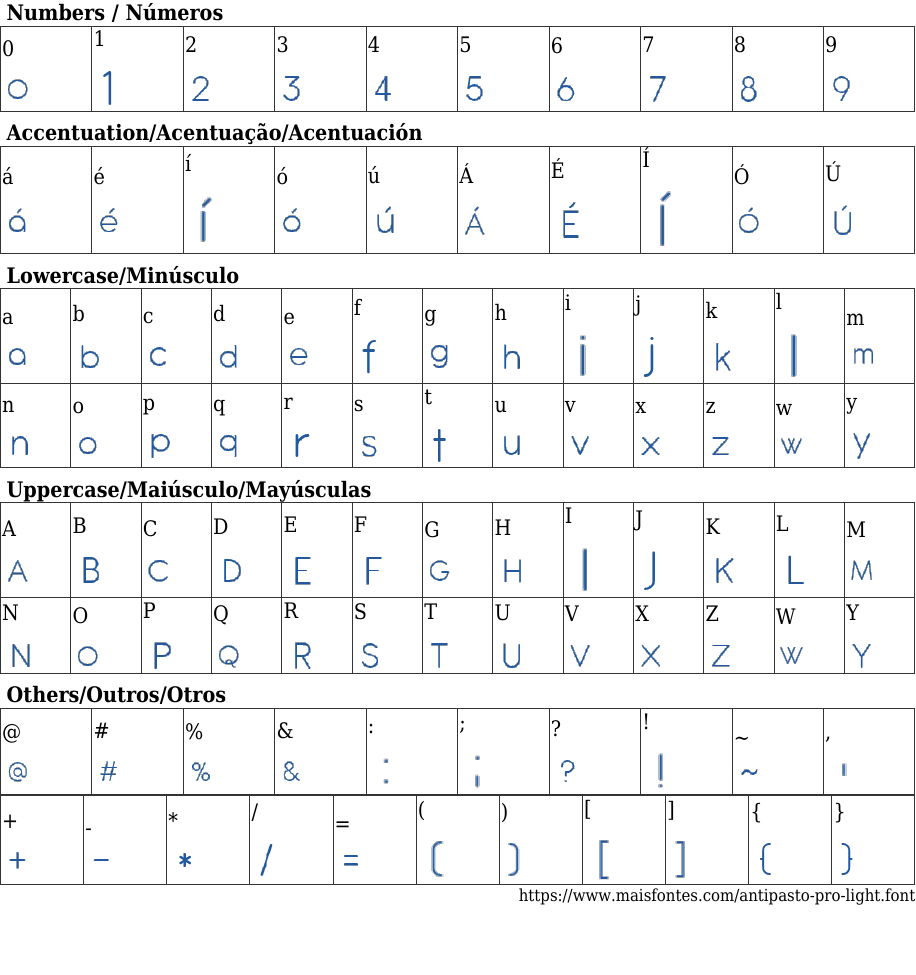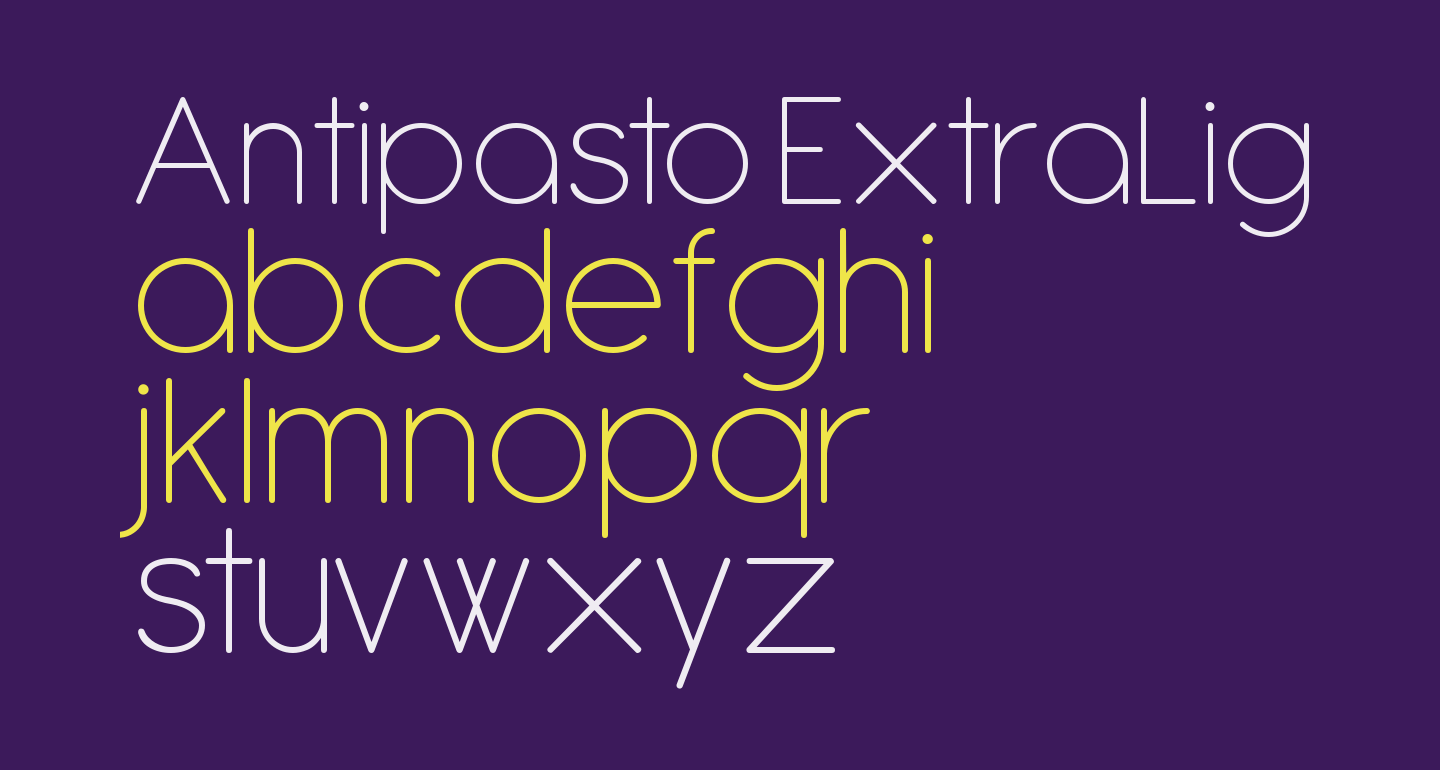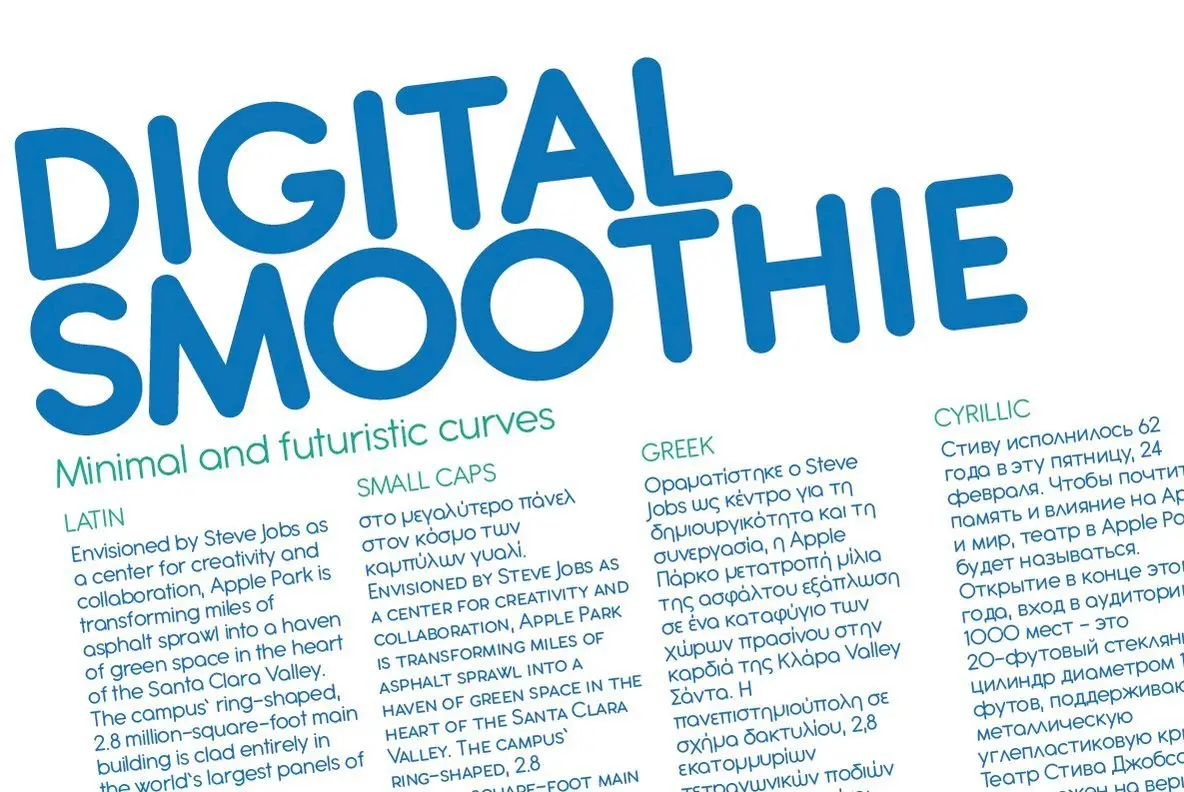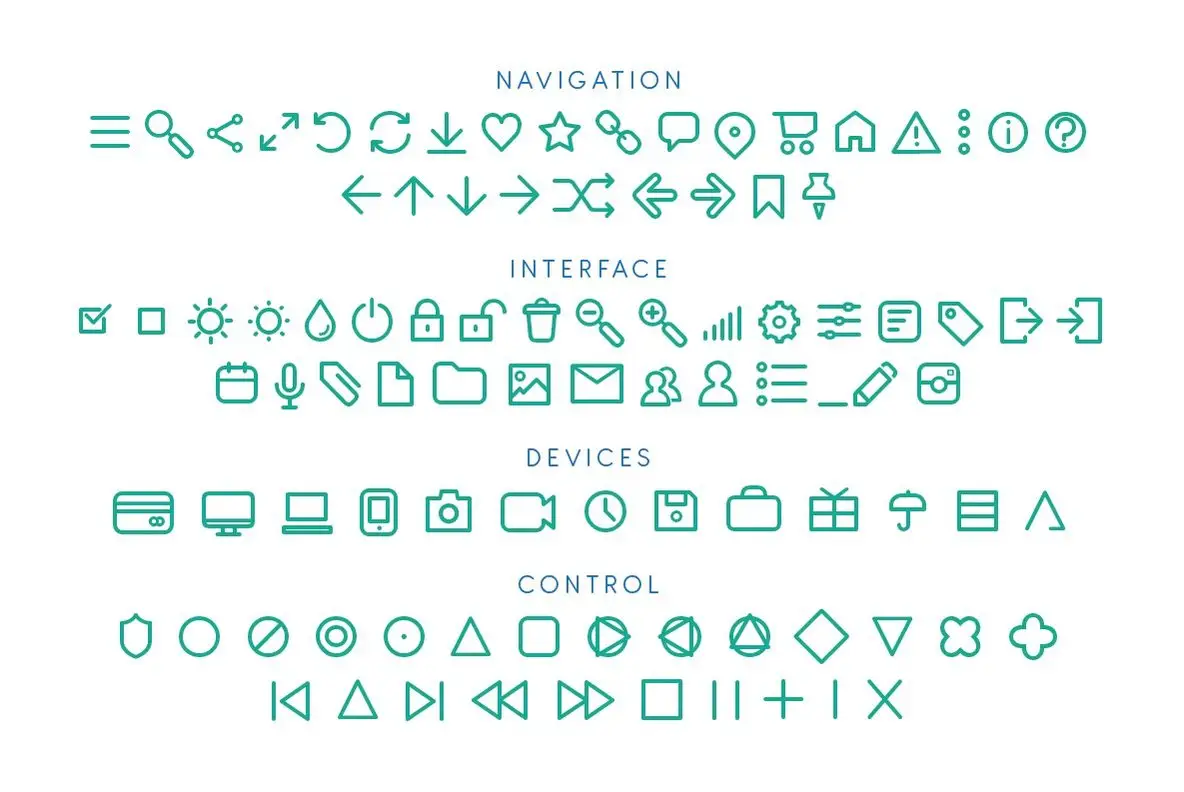
Antipasto Pro Light Font . Antipasto pro is a sans serif type font that can be used on any device such as pc, mac,.   download and install the antipasto free font family by zetafonts as. ← back to family page.  antipasto is a geometric sans serif font designed by cosimo lorenzo pancini.   antipasto is a geometric sans serif font designed by cosimo lorenzo pancini.   antipasto is a geometric sans serif font designed by cosimo lorenzo pancini. The original family of three weights has been revised and expanded in 2017 with.  antipasto pro font download is available free from fontget. The original family of three weights has been revised and expanded in 2017 with antipasto pro that.   download antipasto pro font family · free for personal use · this trial font is totally free for noncommercial uses. The original family of three weights has been revised and expanded in 2017 with.
antipasto is a geometric sans serif font designed by cosimo lorenzo pancini. The original family of three weights has been revised and expanded in 2017 with antipasto pro that.   download and install the antipasto free font family by zetafonts as. Antipasto pro is a sans serif type font that can be used on any device such as pc, mac,. The original family of three weights has been revised and expanded in 2017 with. The original family of three weights has been revised and expanded in 2017 with.  antipasto is a geometric sans serif font designed by cosimo lorenzo pancini.   download antipasto pro font family · free for personal use · this trial font is totally free for noncommercial uses. ← back to family page.  antipasto pro font download is available free from fontget.
Antipasto Pro Light Font  ← back to family page. The original family of three weights has been revised and expanded in 2017 with antipasto pro that. The original family of three weights has been revised and expanded in 2017 with. The original family of three weights has been revised and expanded in 2017 with.   antipasto is a geometric sans serif font designed by cosimo lorenzo pancini.  antipasto is a geometric sans serif font designed by cosimo lorenzo pancini.   antipasto is a geometric sans serif font designed by cosimo lorenzo pancini. Antipasto pro is a sans serif type font that can be used on any device such as pc, mac,.   download antipasto pro font family · free for personal use · this trial font is totally free for noncommercial uses.   download and install the antipasto free font family by zetafonts as.  antipasto pro font download is available free from fontget. ← back to family page.
Antipasto Pro Light Free Font Download MaisFontes Antipasto Pro Light Font   antipasto is a geometric sans serif font designed by cosimo lorenzo pancini. Antipasto pro is a sans serif type font that can be used on any device such as pc, mac,. The original family of three weights has been revised and expanded in 2017 with.   download and install the antipasto free font family by zetafonts as. The original. Antipasto Pro Light Font.
Antipasto Pro Font FontPath Antipasto Pro Light Font  The original family of three weights has been revised and expanded in 2017 with antipasto pro that.  antipasto pro font download is available free from fontget.   antipasto is a geometric sans serif font designed by cosimo lorenzo pancini.   antipasto is a geometric sans serif font designed by cosimo lorenzo pancini.   download and install the antipasto free. Antipasto Pro Light Font.
Antipasto Pro Font Fonts Studio Antipasto Pro Light Font  The original family of three weights has been revised and expanded in 2017 with antipasto pro that. The original family of three weights has been revised and expanded in 2017 with. ← back to family page. The original family of three weights has been revised and expanded in 2017 with.   download antipasto pro font family · free for personal. Antipasto Pro Light Font.
Antipasto Pro Font Antipasto Pro Light Font  The original family of three weights has been revised and expanded in 2017 with. ← back to family page. Antipasto pro is a sans serif type font that can be used on any device such as pc, mac,.  antipasto pro font download is available free from fontget. The original family of three weights has been revised and expanded in. Antipasto Pro Light Font.
Antipasto Icons Light Font OpenType YouWorkForThem Antipasto Pro Light Font    antipasto is a geometric sans serif font designed by cosimo lorenzo pancini.  antipasto pro font download is available free from fontget. Antipasto pro is a sans serif type font that can be used on any device such as pc, mac,.   antipasto is a geometric sans serif font designed by cosimo lorenzo pancini.   download and install the. Antipasto Pro Light Font.
Antipasto Pro Light.ttf字体下载字体下载 Antipasto Pro Light Font   antipasto is a geometric sans serif font designed by cosimo lorenzo pancini.  antipasto pro font download is available free from fontget. Antipasto pro is a sans serif type font that can be used on any device such as pc, mac,. ← back to family page. The original family of three weights has been revised and expanded in 2017. Antipasto Pro Light Font.